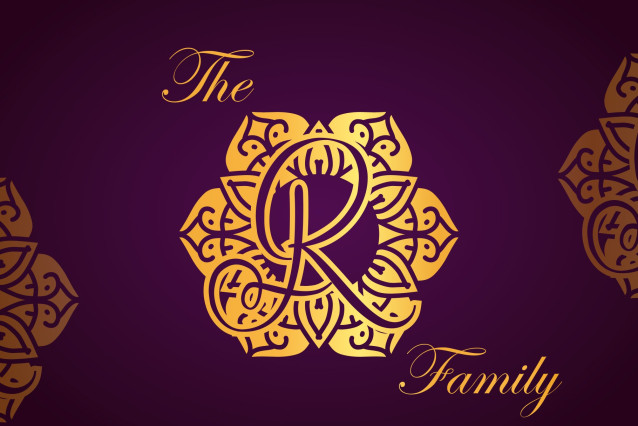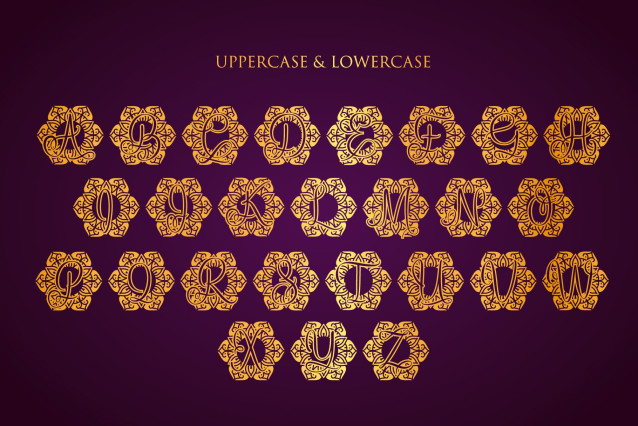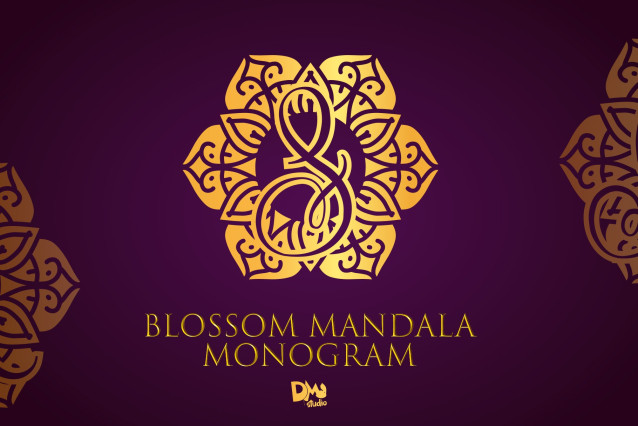
Blossom Mandala Monogram Font
Blossom Mandala Monogram is a stunning monogram font that merges delicate blossom motifs with intricate mandala artistry. Inspired by the freshness of blooming flowers and ornate design traditions, this font is perfect for wedding invitations, spring branding, eco-friendly packaging, personalized gifts, and nature-inspired projects. Its lively and graceful aesthetic brings elegance and a sense of renewal to any creative work.